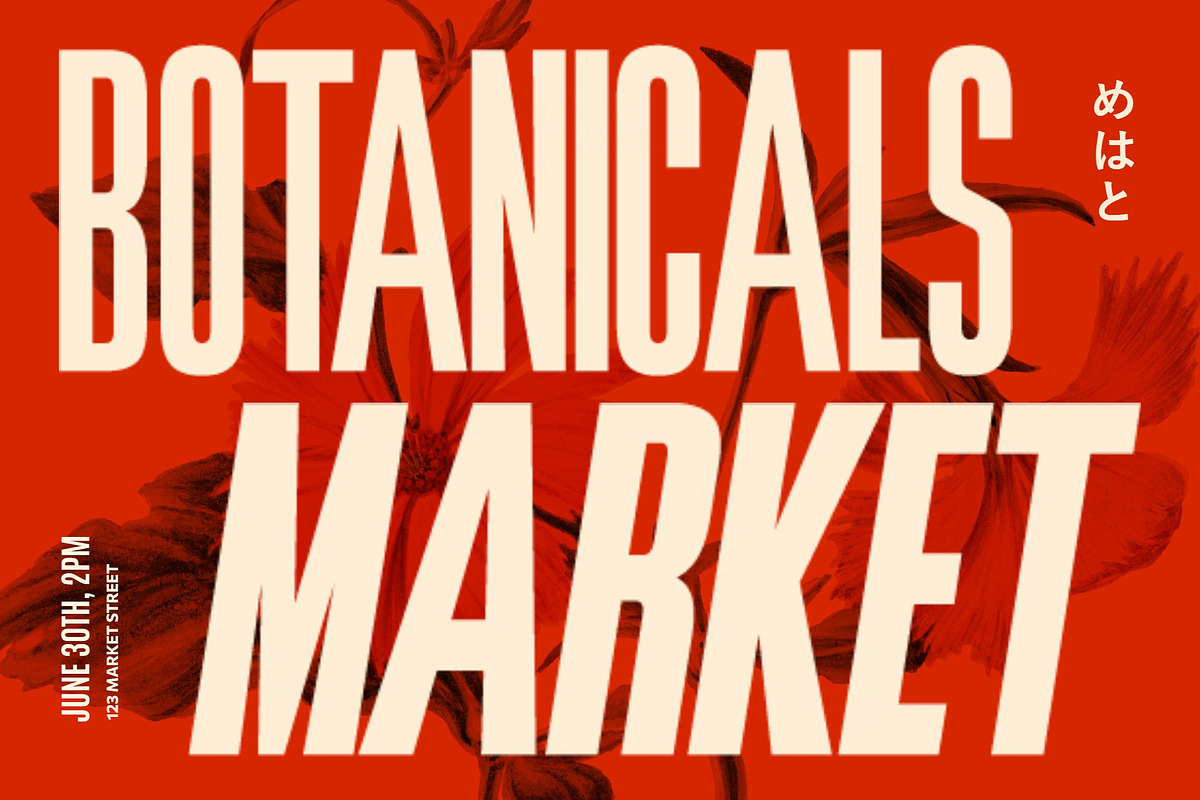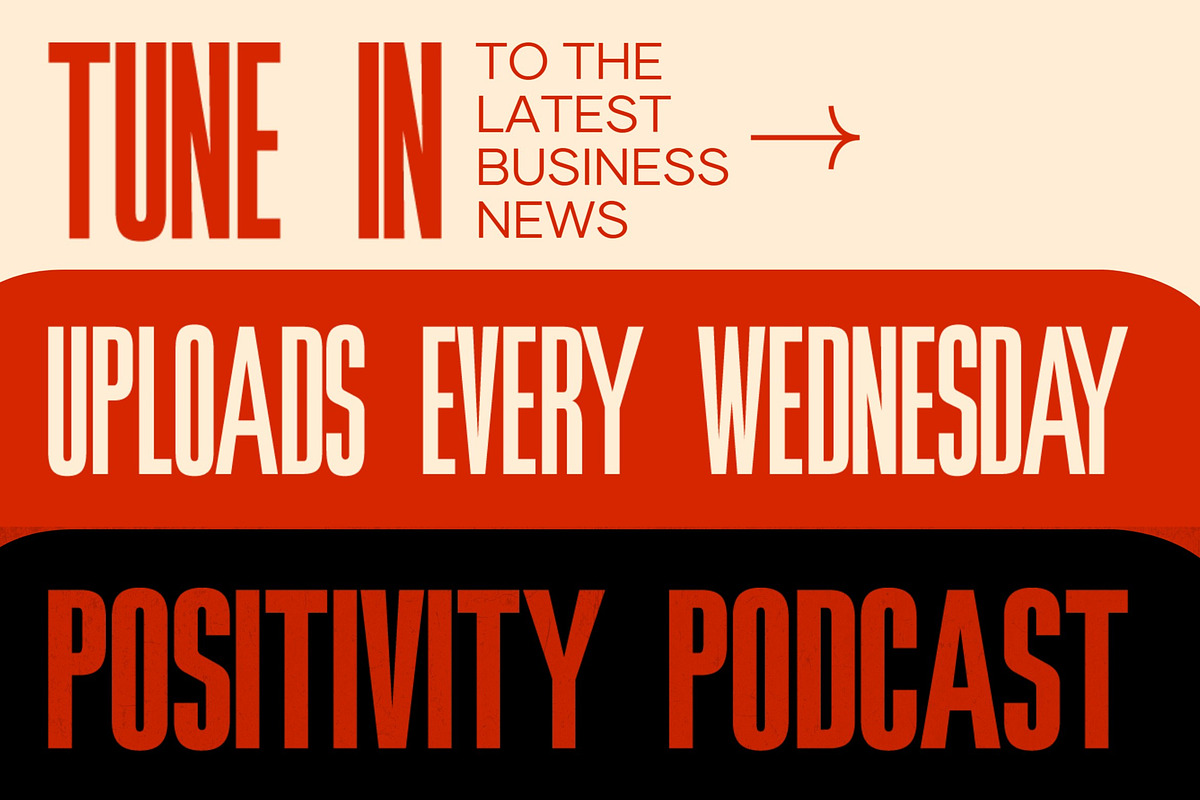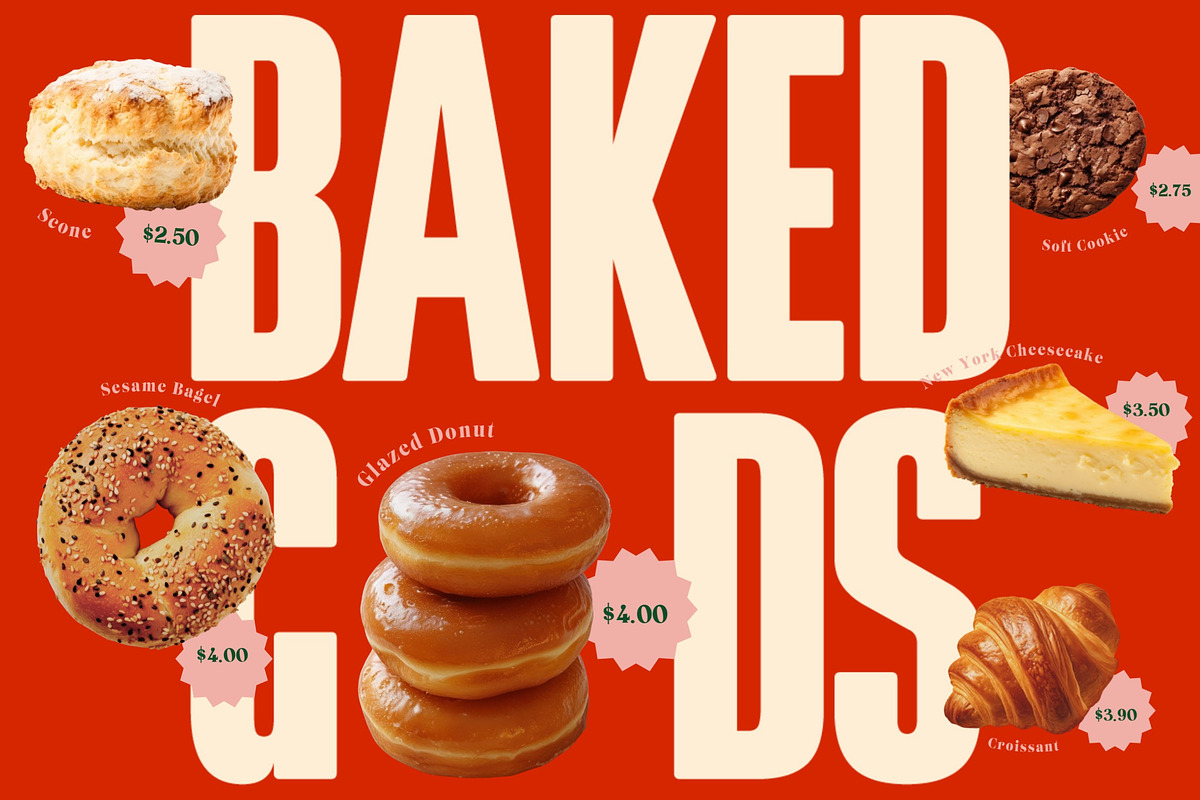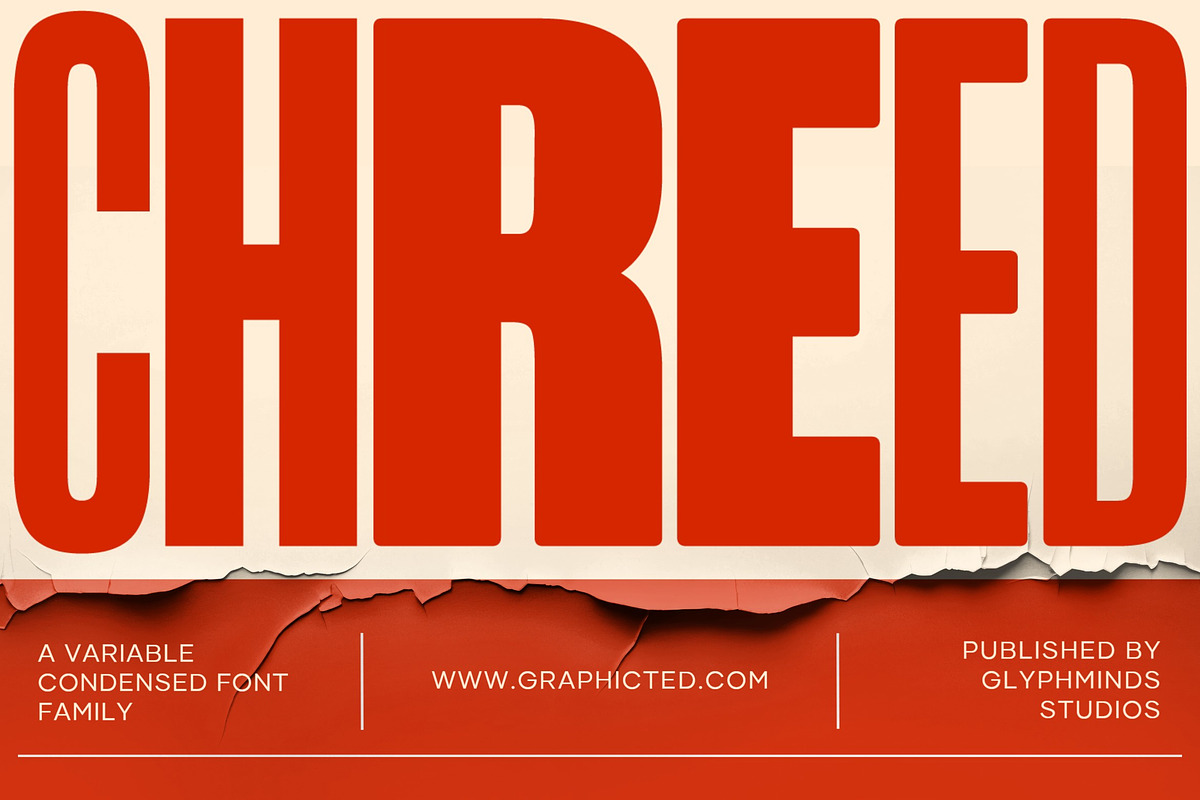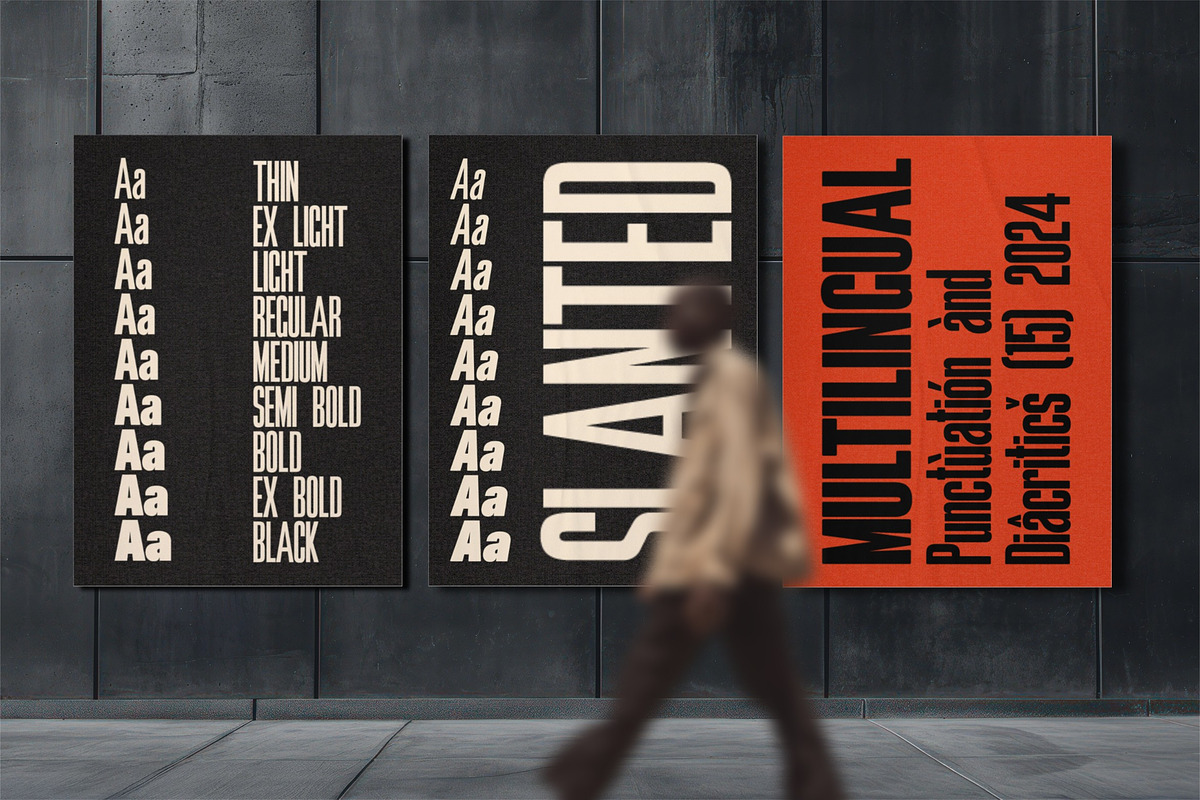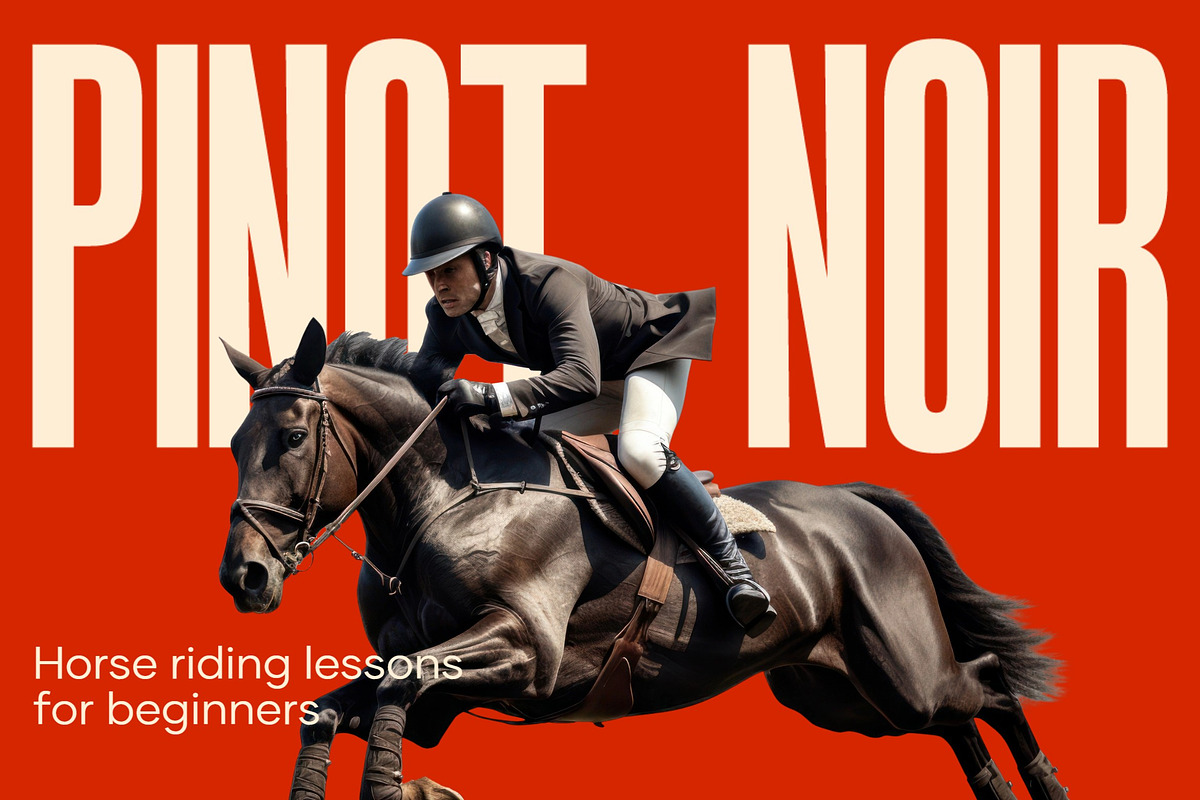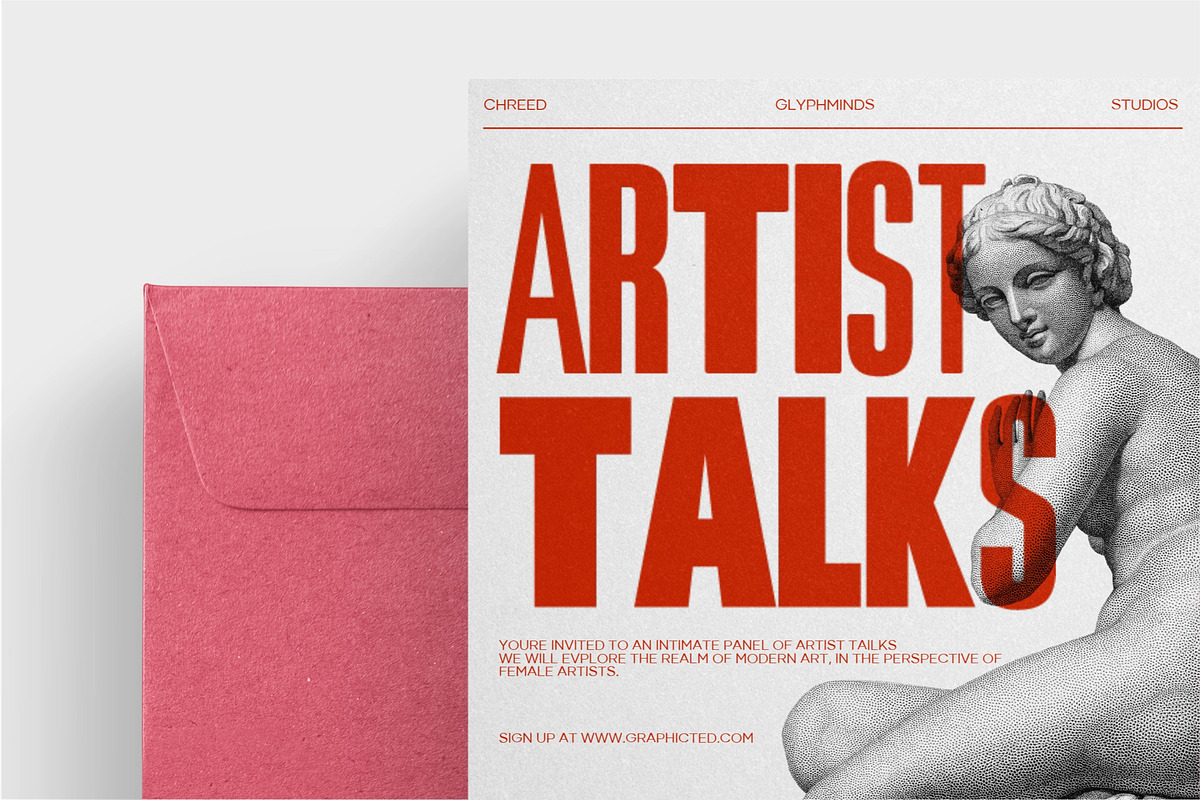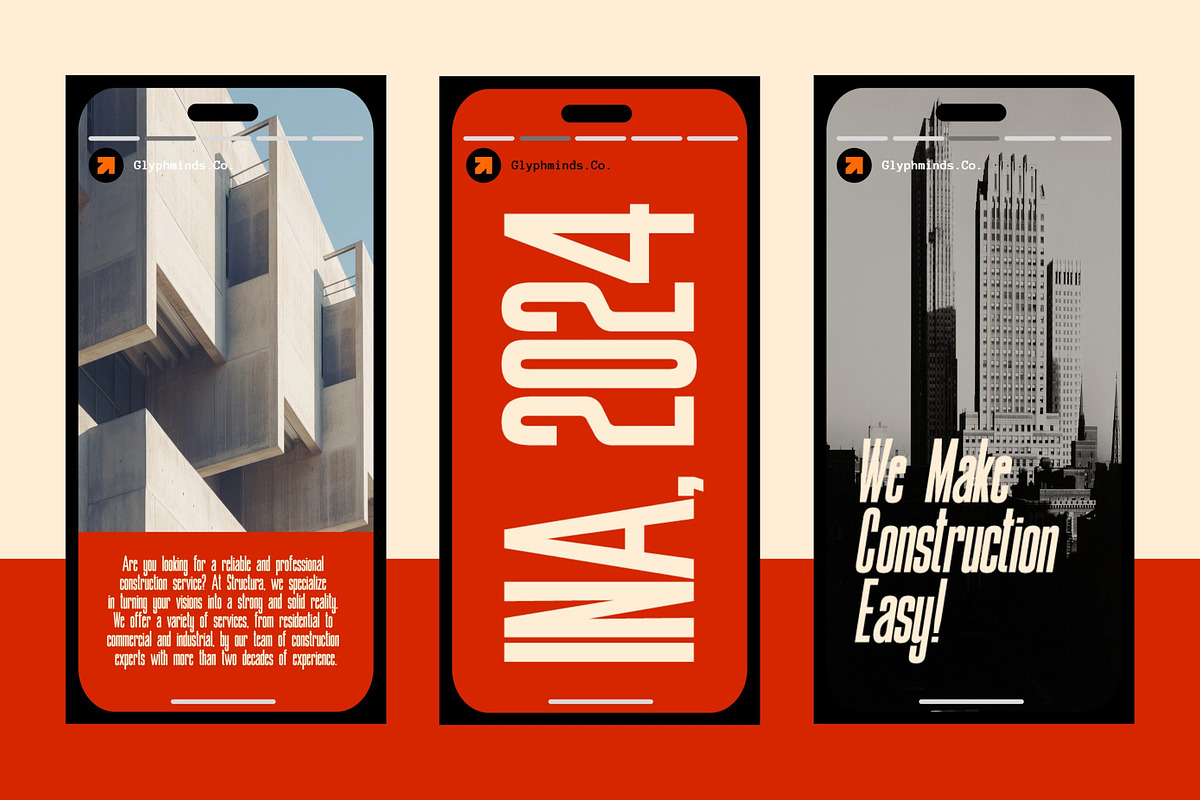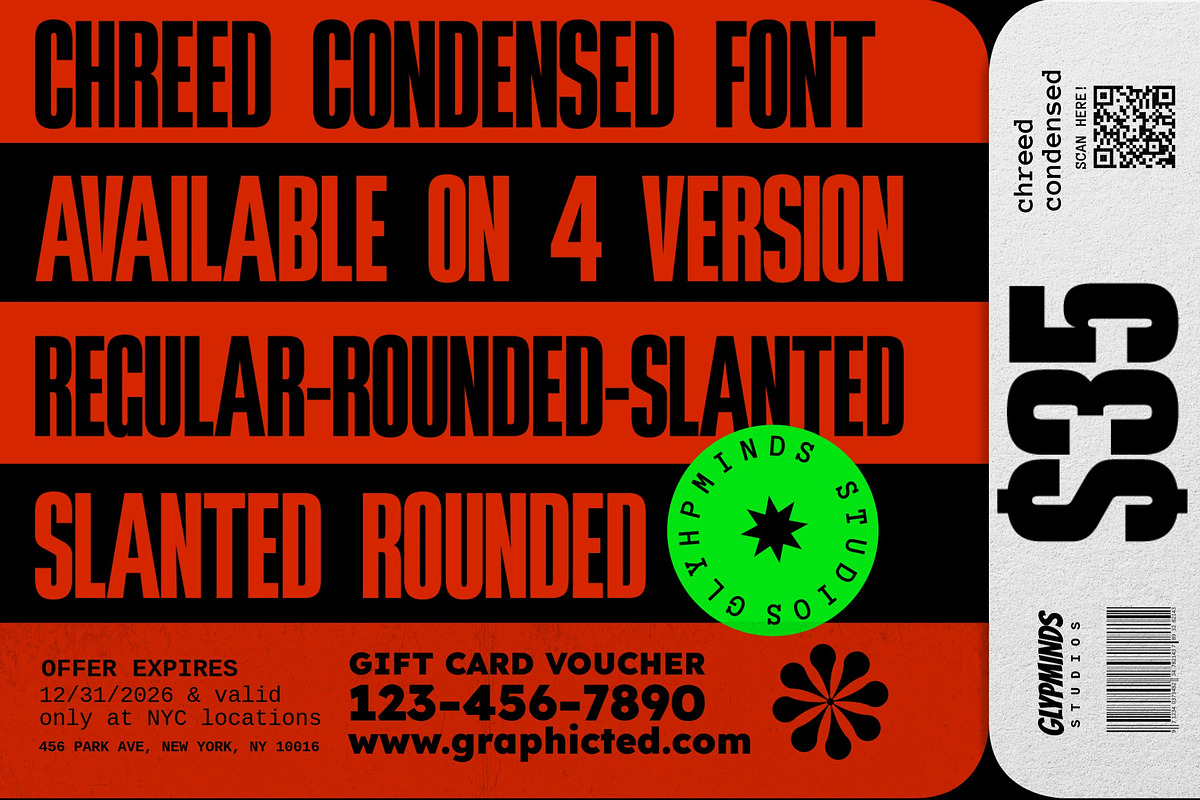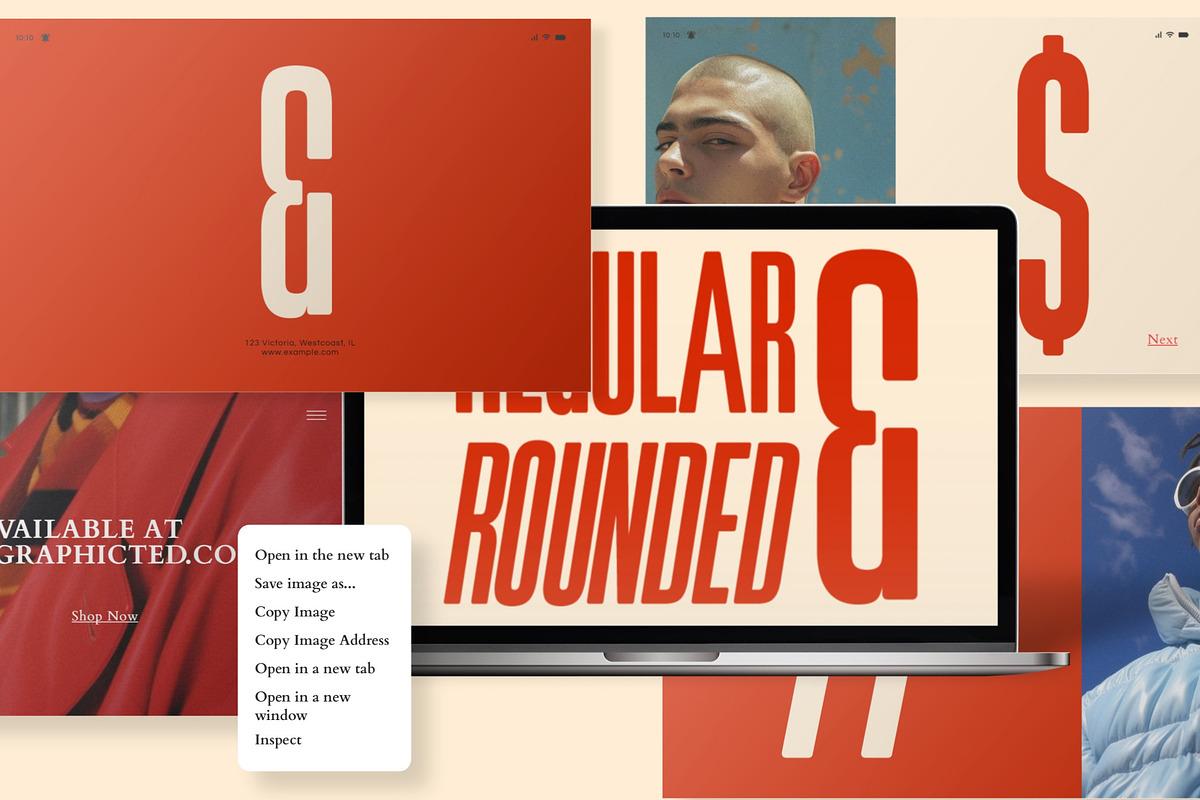
Chreed: 36 Dynamic Styles
Unlock creativity with Chreed, a variable condensed font family boasting 36 versatile styles. Perfect for striking headlines, sleek branding, and creative design projects, Chreed combines boldness with elegance. Whether you're crafting posters, logos, or digital media, its clean and dynamic design ensures maximum visual impact. Designed for professionals and creators alike, this font family adapts seamlessly to diverse themes, offering a perfect balance of modernity and readability. Stand out with Chreed’s powerful design flexibility!